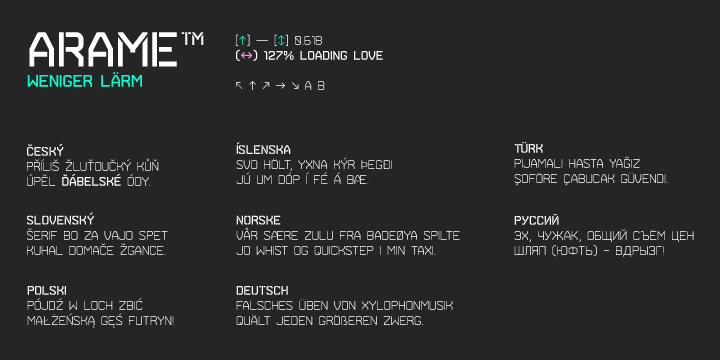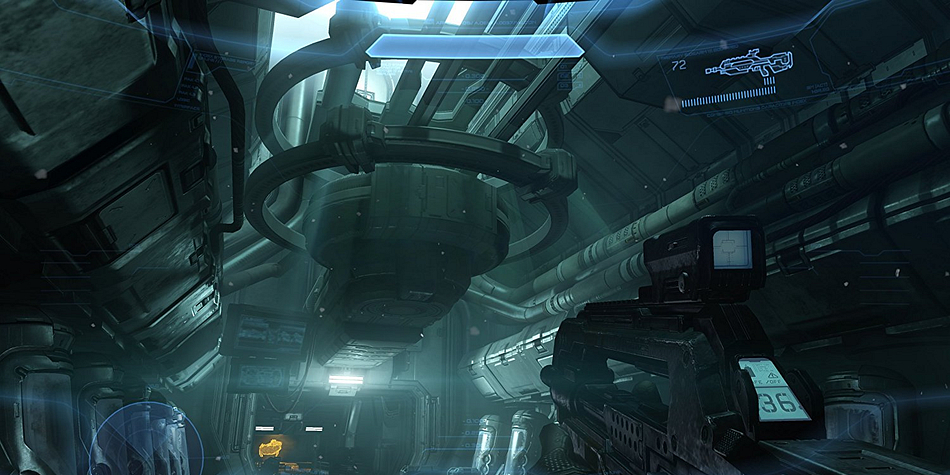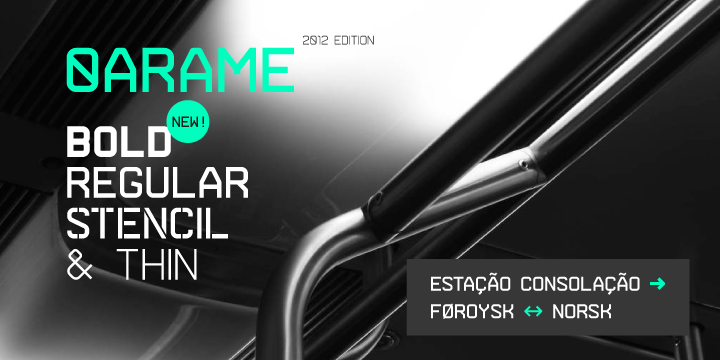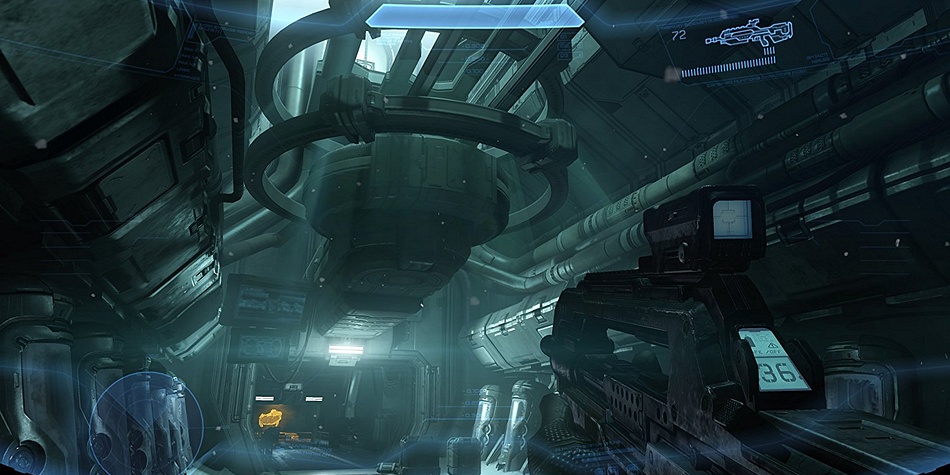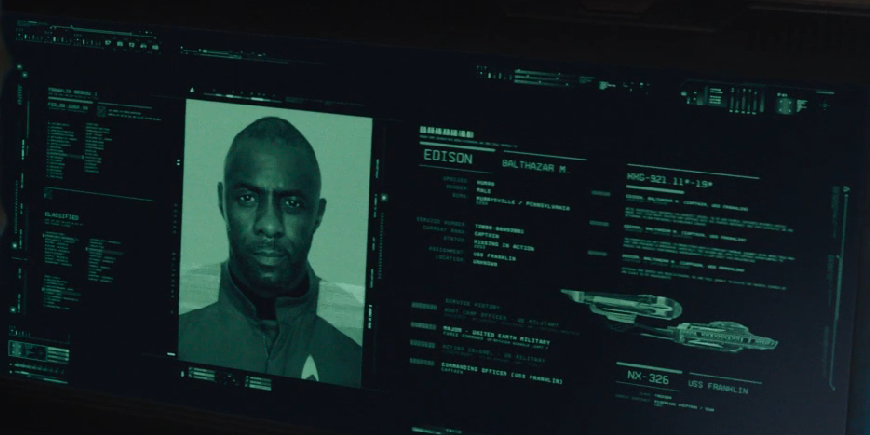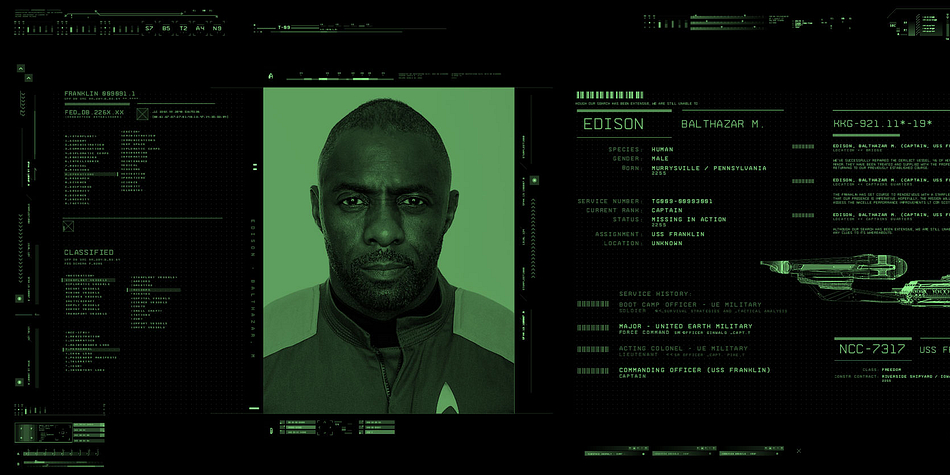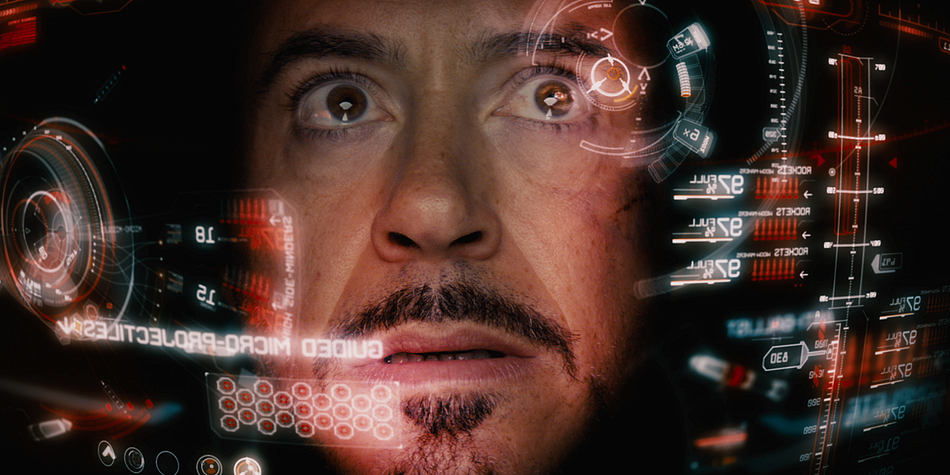
0Arame is a display sans and stencil font family. This typeface has three styles and was published by Hitype.
Arame
Font with technical feel of the movies and games, was featured in Iron Man Avengers, Halo 4 and Game Reaktor Magazine.
Version 1.2 features Cyrillic, arrows and reorganized family and a new weight.